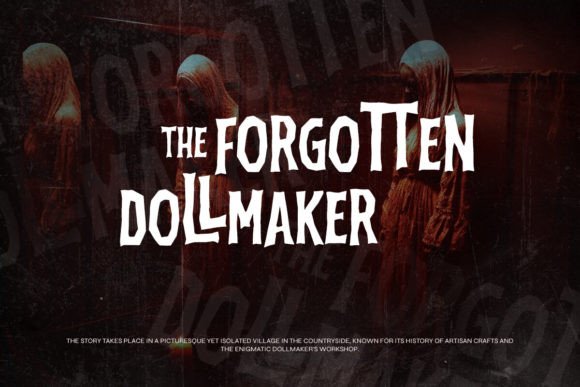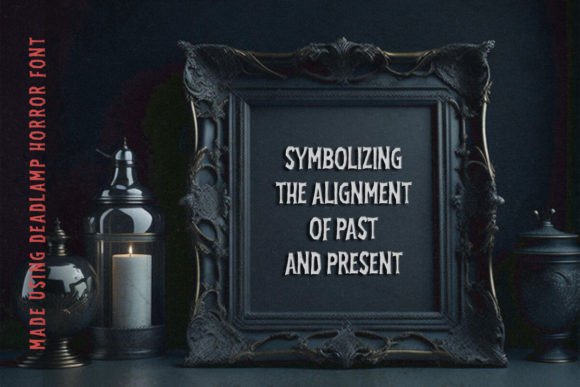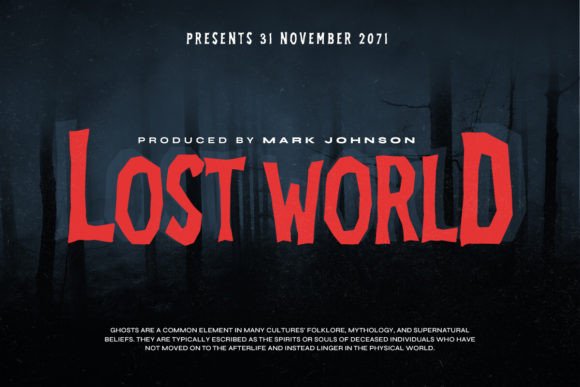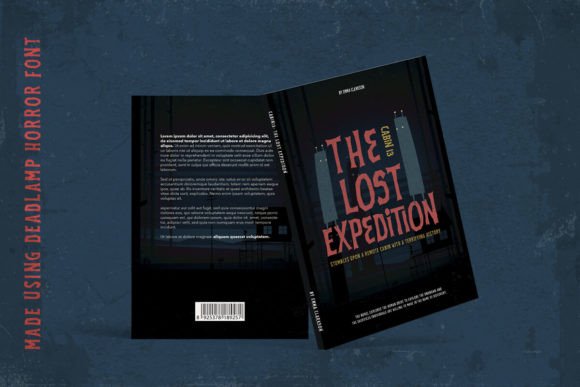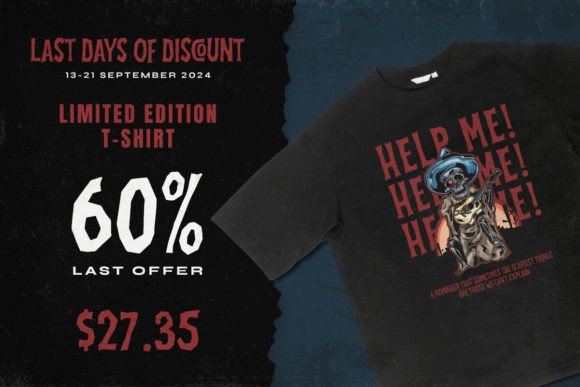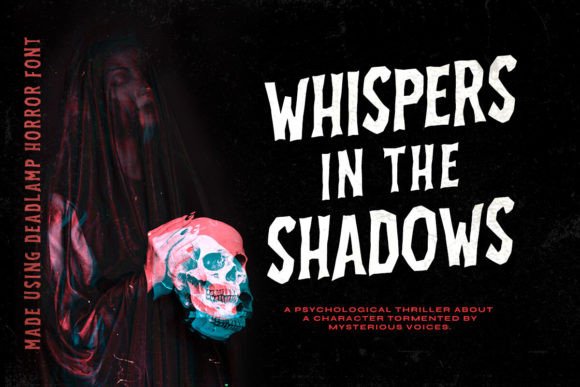
Unveil the Depths of Terror with Deadlamp Font: A Hauntingly Mesmerizing Horror Display Font
Are you ready to embark on a spine-tingling journey into the darkest realms of design? Look no further than Deadlamp, our latest font creation that beckons to the shadows. This hauntingly mesmerizing horror display font is perfect for designers and crafters who dare to venture into the macabre. In this article, we’ll delve into the depths of Deadlamp, exploring its features, inspirations, and uses, and uncover the secrets that make it a must-have for any horror-themed design project.
The Inspiration Behind Deadlamp
Deadlamp draws inspiration from the darkest corners of horror and the supernatural. Our team of designers sought to create a font that would evoke the eerie and unsettling atmosphere of abandoned asylums, creepy mansions, and haunted forests. We wanted to craft a font that would make you feel like you’re walking through a graveyard on a dark, stormy night, with the wind howling through the tombstones.
The result is a font that’s both terrifying and fascinating. Deadlamp’s unique blend of Gothic and Victorian-era typography elements creates a sense of foreboding and dread, perfect for horror-themed designs, such as movie posters, album covers, and haunted house attractions.
Features of Deadlamp Font
Deadlamp is more than just a font – it’s an experience. Here are some of its key features:
- Haunting Ligatures: Deadlamp features a range of ligatures that add to its eerie atmosphere. These ligatures can be used to create creepy effects, such as blood drips and ghostly apparitions.
- Distressed Texture: The font’s distressed texture gives it a worn, vintage look, as if it’s been plucked straight from a haunted antique book.
- Variable Font Weights: Deadlamp comes in a range of font weights, from light to bold, allowing you to customize the font to suit your design needs.
- Multilingual Support: Deadlamp supports multiple languages, making it a versatile font for designers around the world.
Using Deadlamp in Your Designs
Deadlamp is perfect for a range of design projects, from horror-themed posters and flyers to haunted house attractions and creepy crafts. Here are some ideas to get you started:
- Horror Movie Posters: Use Deadlamp to create eye-catching posters for your favorite horror movies or to promote your own horror-themed film project.
- Haunted House Attractions: Create spooky signage and promotional materials for haunted house attractions, using Deadlamp to set the tone for a terrifying experience.
- Creepy Crafts: Use Deadlamp to add a touch of horror to your crafts, such as Halloween decorations, creepy candles, or unsettling artwork.
Tips for Working with Deadlamp
To get the most out of Deadlamp, here are some tips to keep in mind:
- Experiment with Font Weights: Try out different font weights to create visual interest and add depth to your designs.
- Use Ligatures Creatively: Don’t be afraid to get creative with Deadlamp’s ligatures – they can add a touch of horror to your designs.
- Pair with Other Fonts: Deadlamp pairs well with other horror-themed fonts, such as sans-serif fonts or script fonts. Experiment with different pairings to create a unique look.